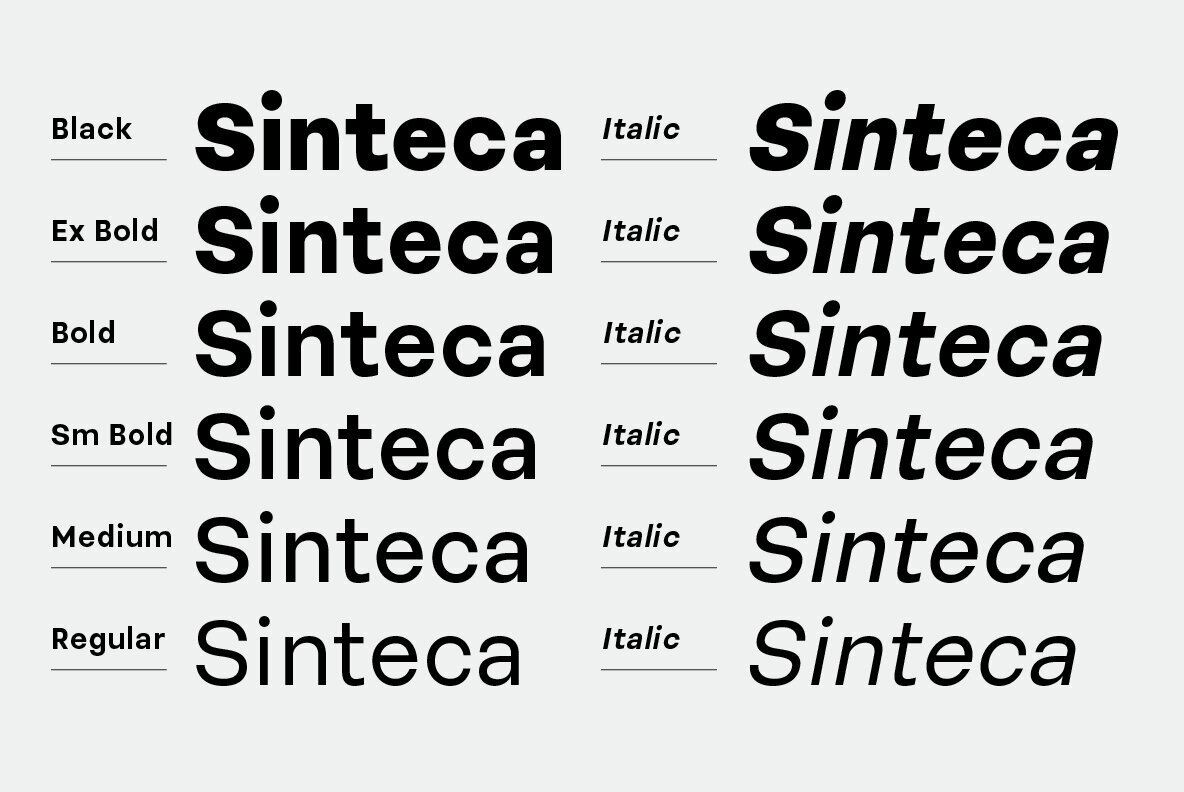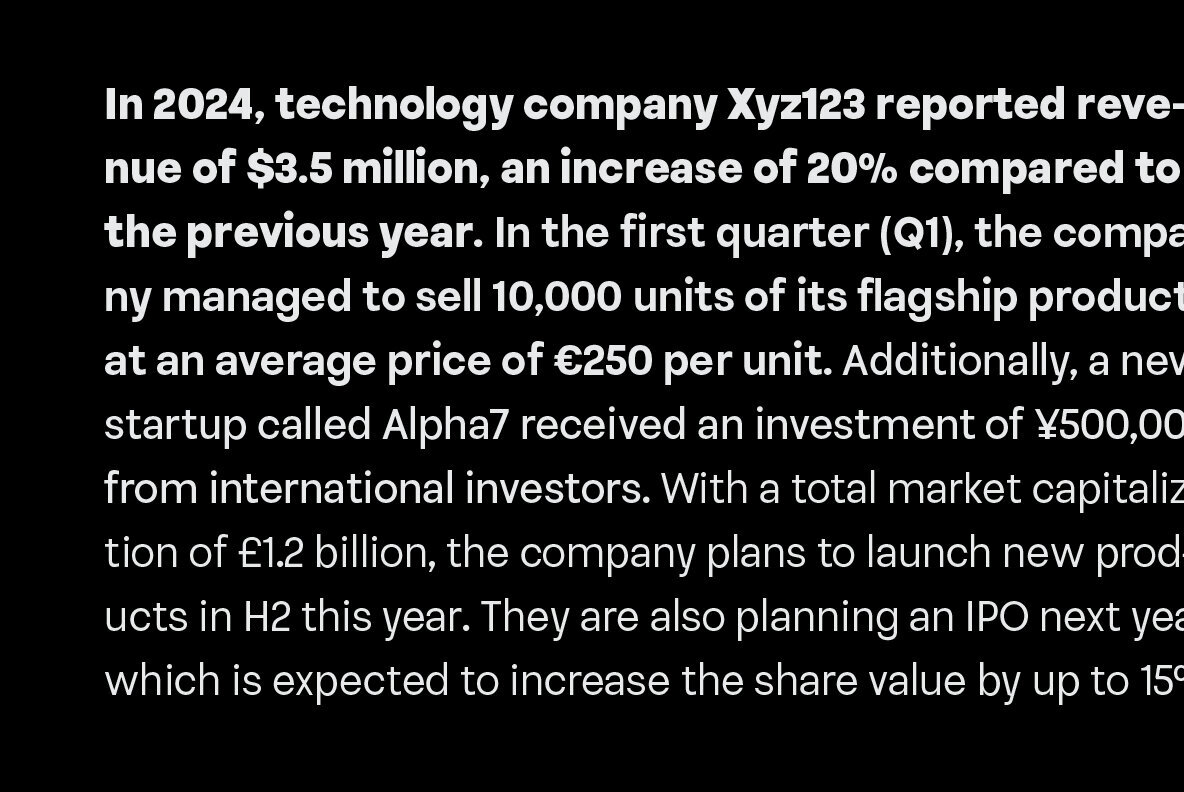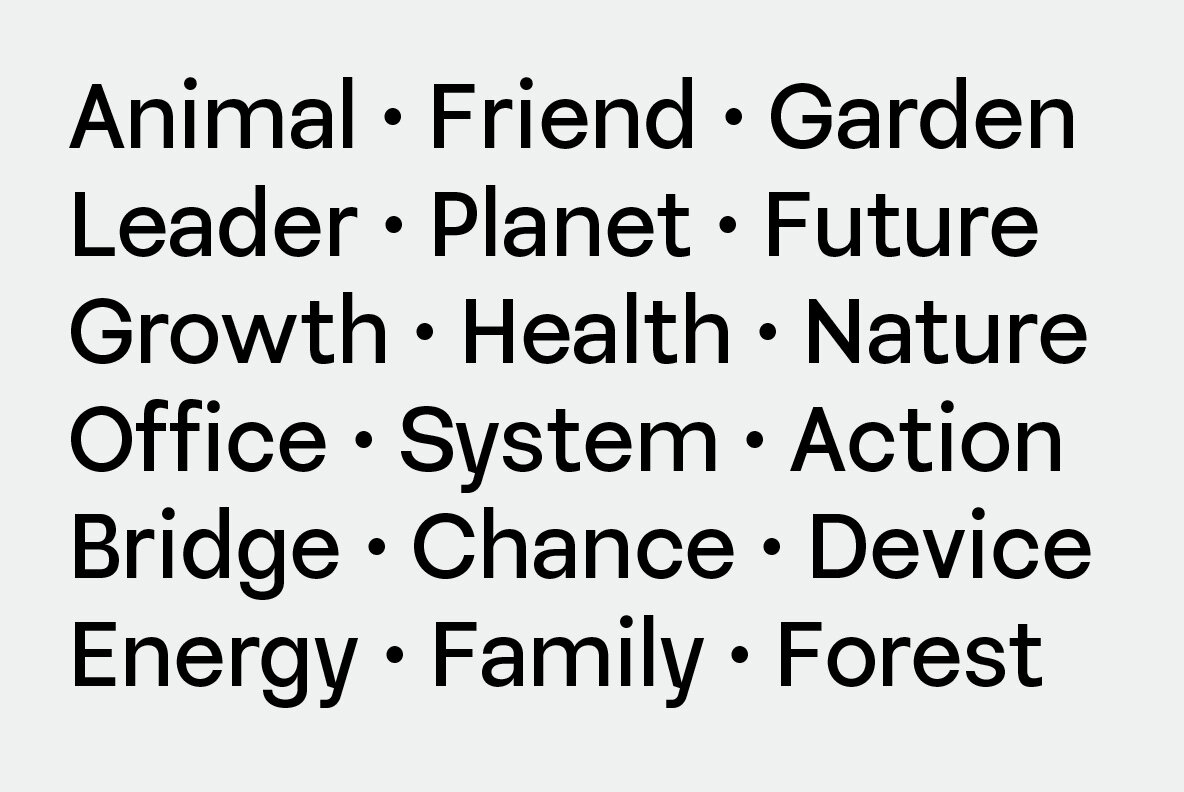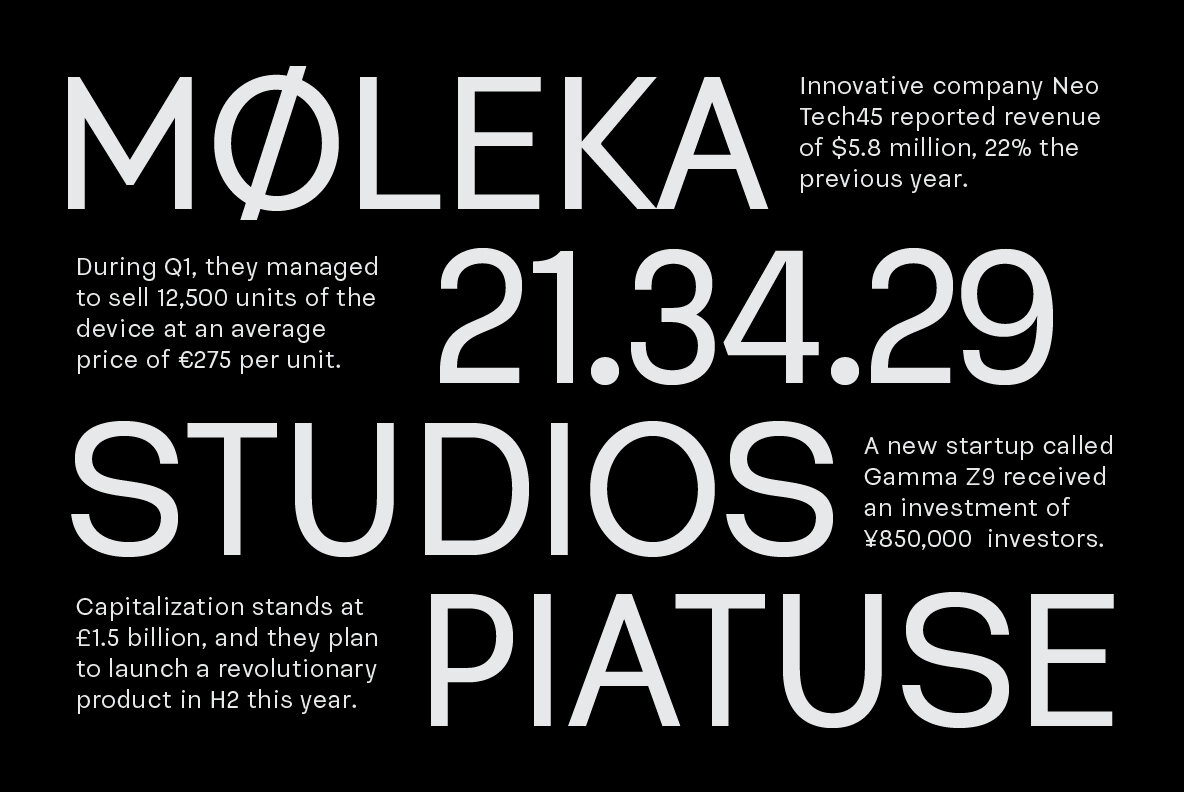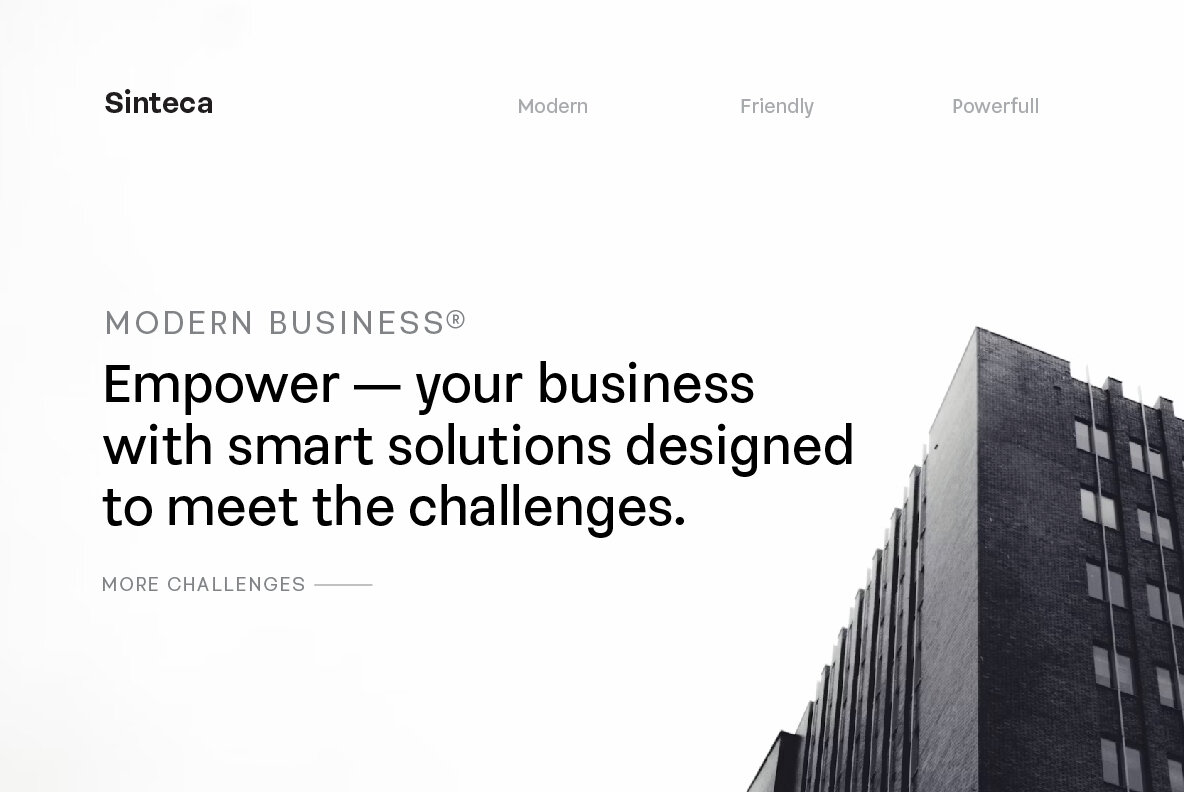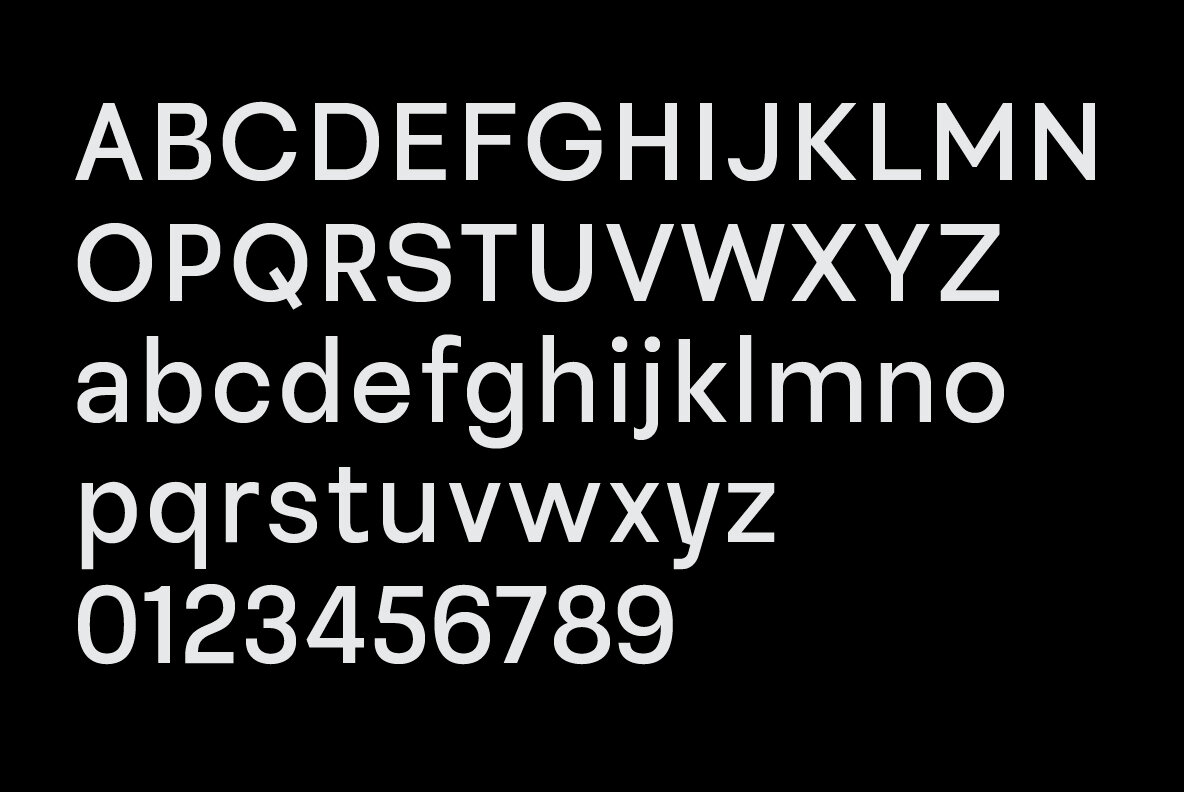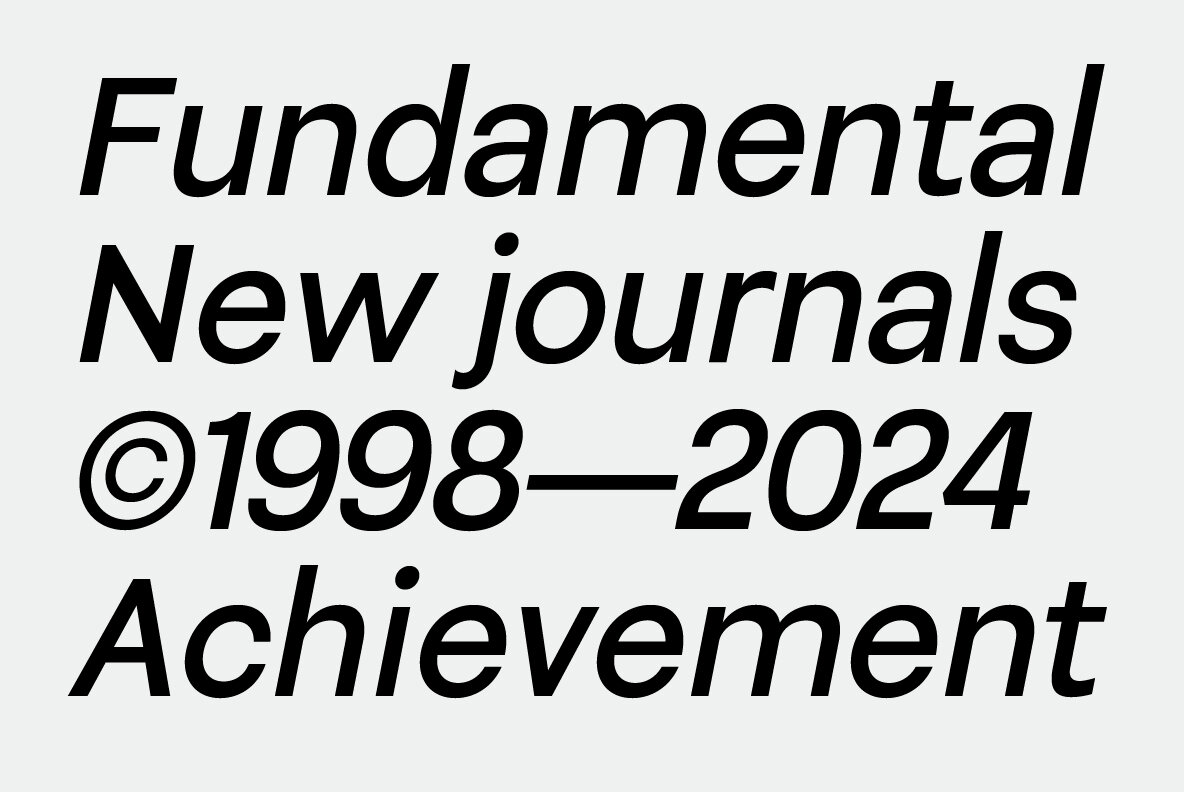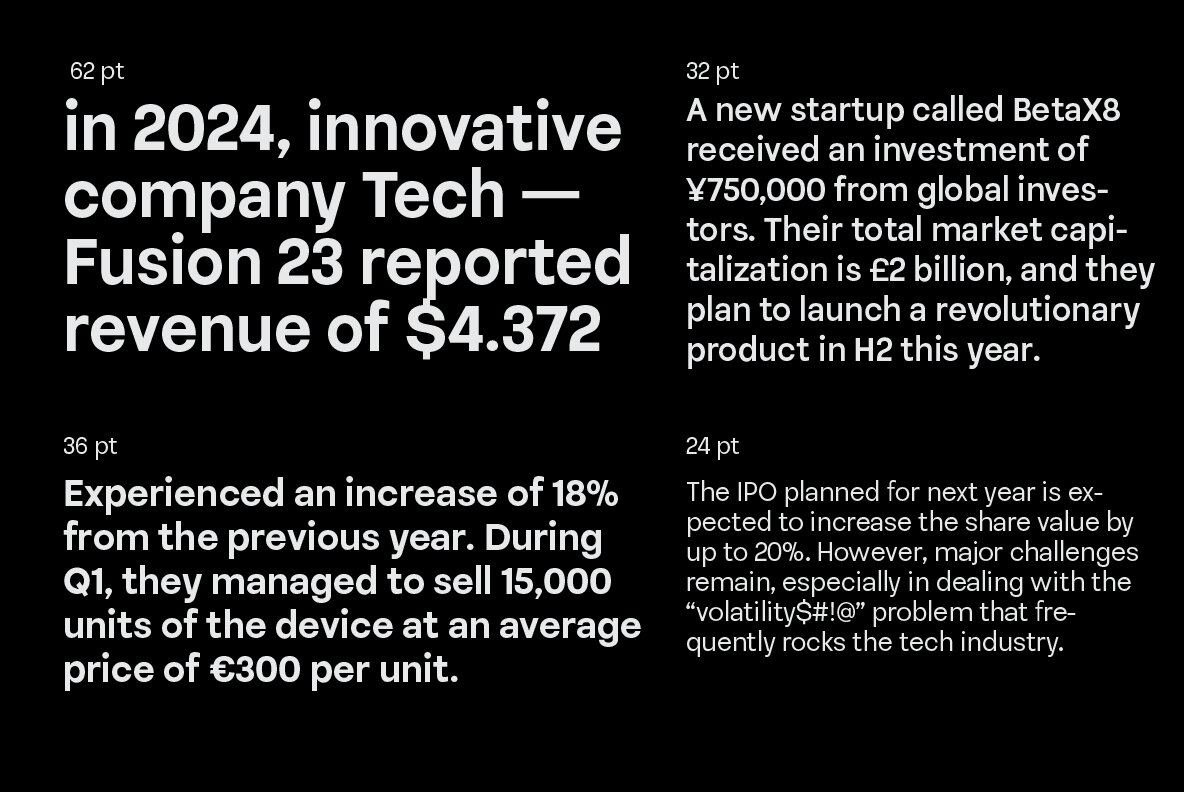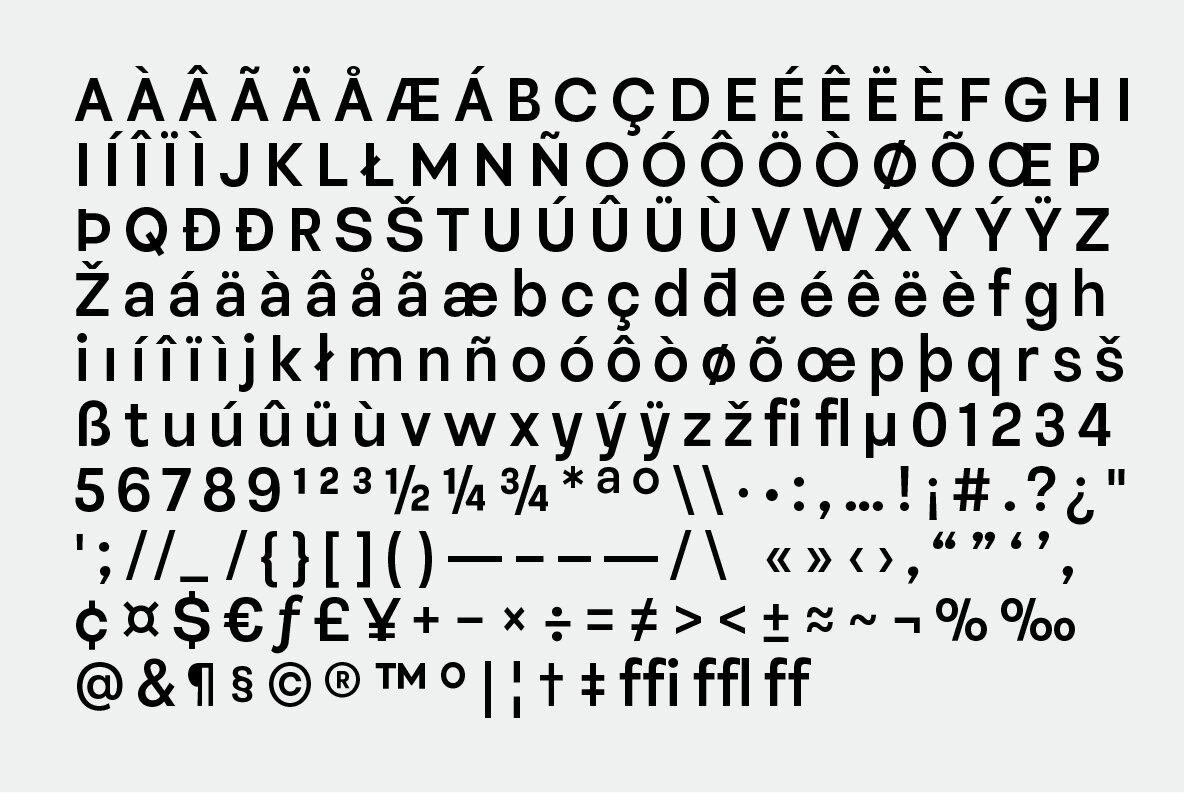
Sinteca Font
Sinteca Sans Serif Modern is a font designed with contemporary beauty and readability as top priorities. This font offers great flexibility with 12 thickness options, from Regular to Black, making it the perfect choice for various design projects. Feature: Why Choose Sinteca Sans Serif Modern?